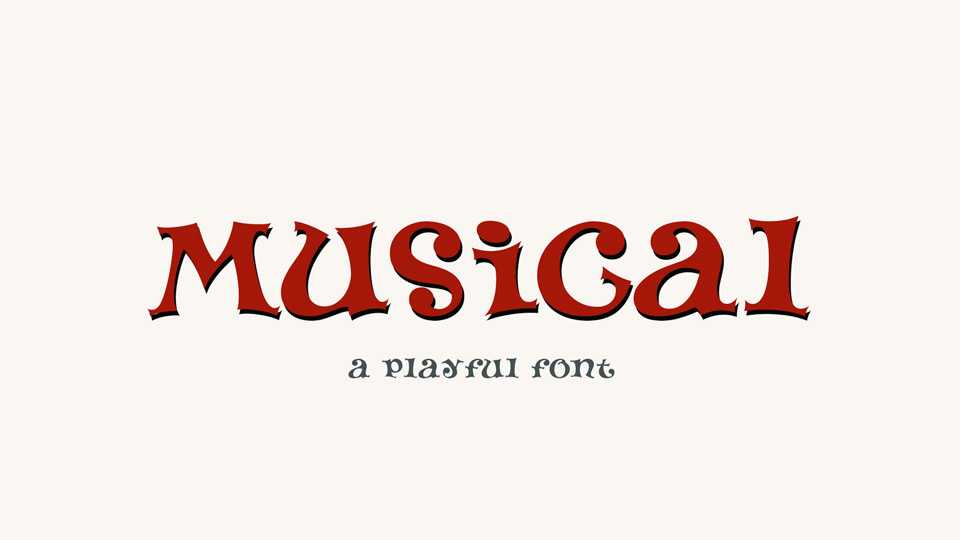
Download Musical font, a uniform-height display typeface with playful glyphs which may be combined freely with uppercase and lowercase characters.
Designer: Frank Baranowski